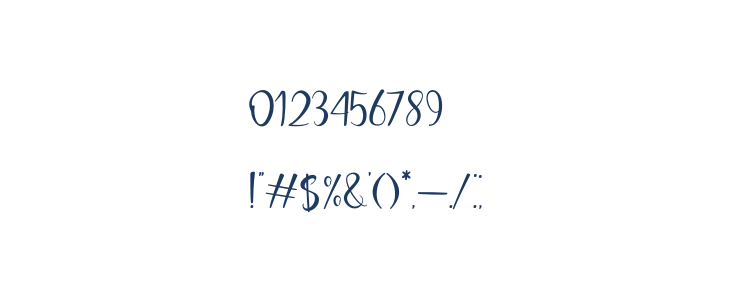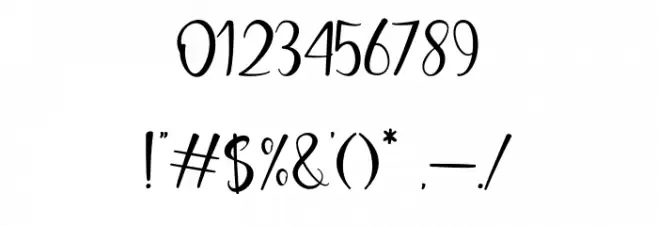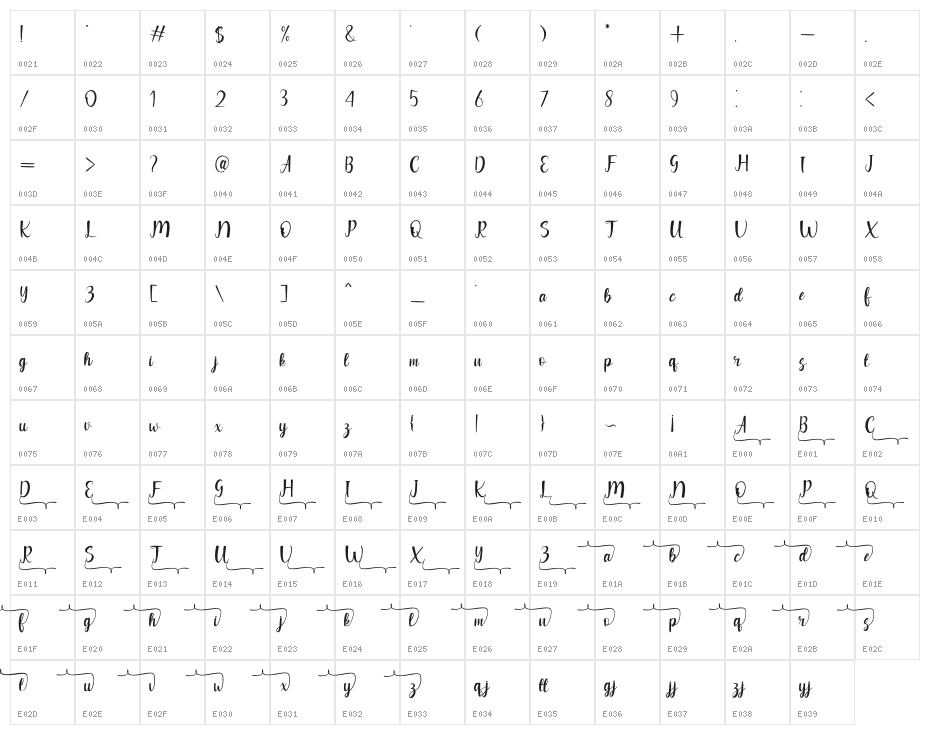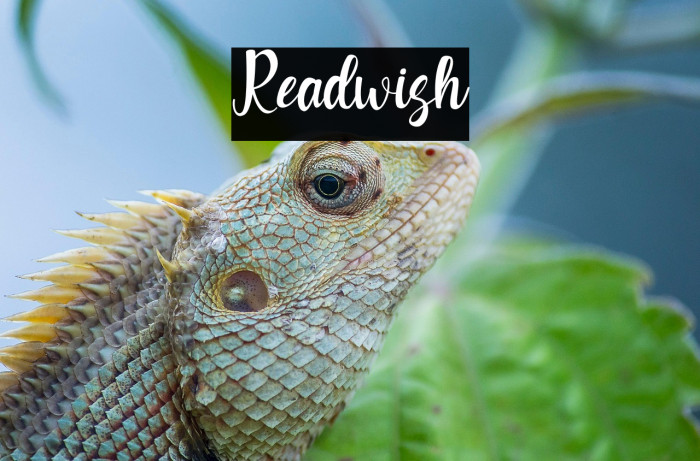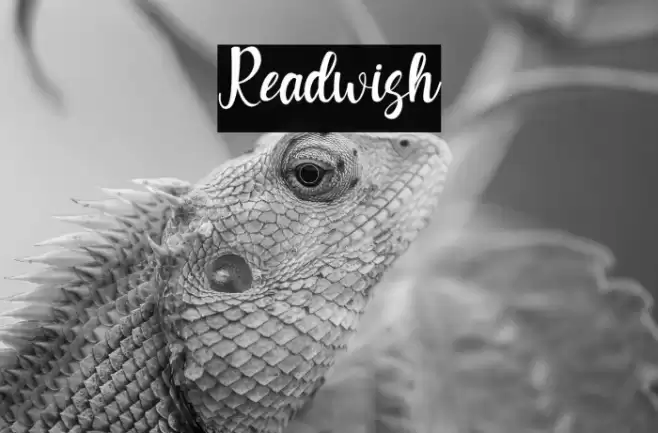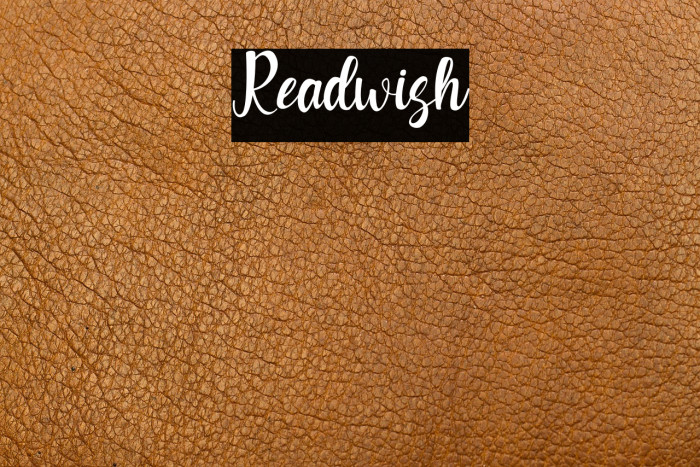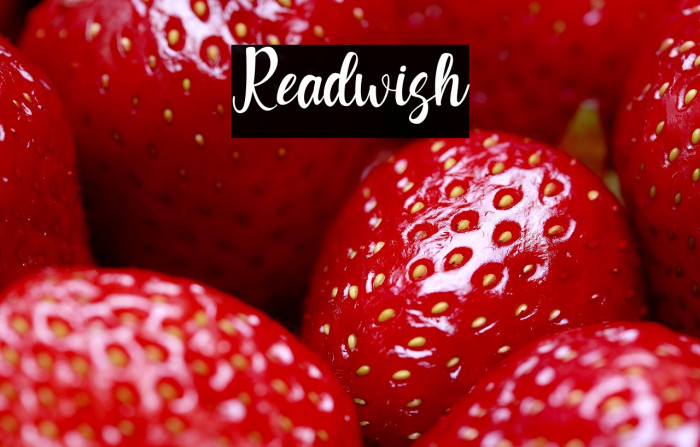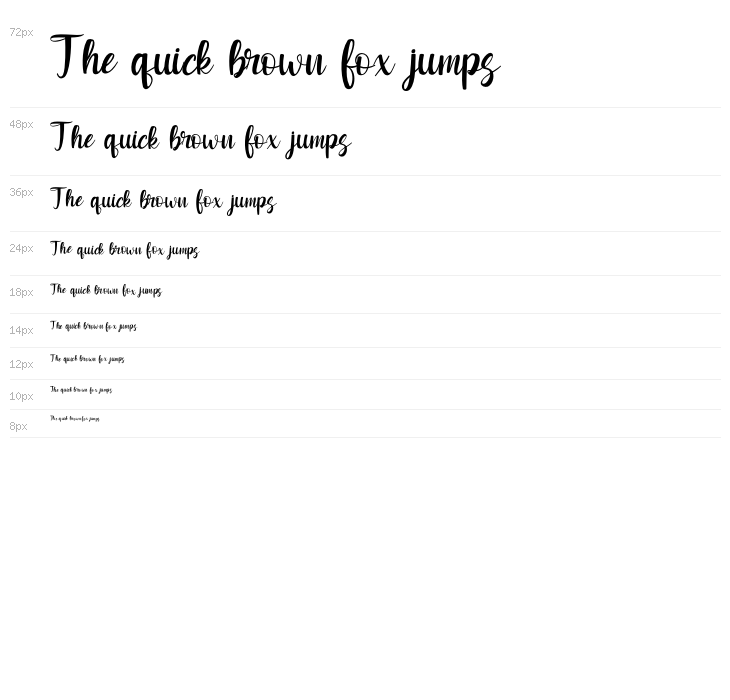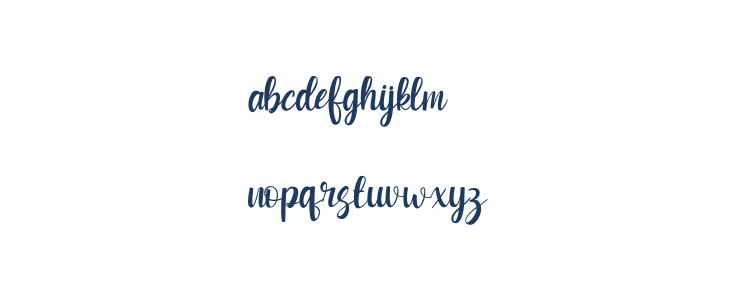
Readwish Font
Readwish Description
This font features a playful and elegant script style with a handwritten appearance. The uppercase letters are bold and slightly whimsical, with varying stroke widths that add a dynamic feel. The lowercase letters maintain a consistent flow, enhancing the handwritten aesthetic. Numbers and special characters are well integrated, maintaining the overall style. The font's design is both artistic and readable, making it suitable for creative projects. Its unique character shapes and fluidity make it stand out, offering a blend of modern and classic script elements.